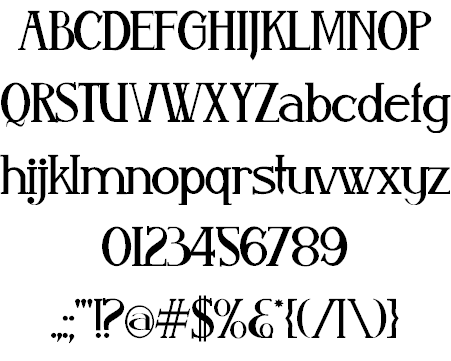
Free Aleijadinho Font
Featuring a free aleijadinho font. Font Space has created this amazing and beautiful free typeface. Showcase your designs like a graphic design pro by adding a new touch with this fancy font.